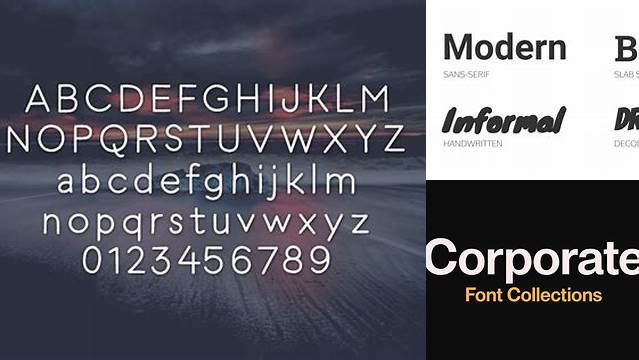
Corporate Normal Free Font: A Designer's Guide
Corporate Normal free font has become a popular choice for designers looking for a clean, professional, and versatile typeface. Guys, this font family is designed to be highly legible and adaptable, making it suitable for a wide range of applications, from corporate branding to web design and everything in between. Let's dive deep into what makes this font a great option, exploring its features, how to download it, and where you can best use it.
What is the Corporate Normal Free Font?
So, what exactly is Corporate Normal, and why is it so beloved by designers? Basically, it's a sans-serif typeface known for its simplicity, clarity, and neutrality. These fonts are made to be easy to read and to blend in with any other font you choose. The font is built on a design principle that stresses readability and a clean, modern aesthetic. This makes it a fantastic choice for any situation that demands clarity and professionalism. Its clean lines and consistent letterforms make it perfect for both digital and print media.
Corporate Normal offers a comprehensive set of weights and styles. This range allows designers to create a wide variety of design options. You can pick from light and thin styles for delicate elements and heavy, bold styles for headlines and titles. This flexibility makes it useful for a wide array of design projects. From document creation to web design, this font gives you the options you want. The typeface also includes a complete character set, including numerals, punctuation marks, and various special characters. This helps to ensure that it's fully functional for multilingual projects. The versatility extends to its compatibility. It works well with a variety of other fonts, making it a good choice for pairing with different typefaces. This makes your design stand out. The core principle behind Corporate Normal is its adaptability. It's designed to work in a way that helps your message shine through. This helps you to avoid distracting elements.
The aesthetic of Corporate Normal is all about simplicity. It aims to create a feeling of professionalism. This is a neutral typeface, with no strong personalities or distracting design choices. It's not just a font; it's a design tool that offers consistency and legibility. This makes your message clear. Corporate Normal has been optimized for both screen and print use, ensuring that your text looks great no matter the medium. This is a real benefit. This makes it perfect for various design situations. It works for websites, reports, and even product packaging. Its ability to look good in any situation makes it a great choice for a wide range of projects. This makes it a reliable option for designers who want a font that is both professional and easy to use. In short, Corporate Normal free font is a powerful and versatile typeface. It is the perfect choice for designers who want a font that combines functionality with a clean and modern look. This makes it an essential tool in any designer's toolkit.
Features and Characteristics of Corporate Normal
Corporate Normal free font comes with a variety of features that make it a great choice for many projects. Let's get into the details, shall we?
First, the font is known for its high readability. The letterforms are carefully designed to be clear and easy to distinguish, even at small sizes. This makes it perfect for text-heavy documents and websites. It is designed to look good at any size. This font is designed to be versatile. It comes in a wide range of weights and styles. This allows you to use the font in many different situations. From bold headlines to subtle body text, Corporate Normal offers the flexibility that designers need. The font also has a complete character set. It includes all the basic characters, plus some special characters. This supports many languages and a wide range of design needs. The font's spacing and kerning are carefully balanced. This improves readability and provides a consistent look. This also helps to enhance the overall visual appeal of any design.
Corporate Normal free font is designed to have a clean, modern aesthetic. The simple, geometric shapes give it a professional look. This makes it a good choice for corporate branding, where consistency and a professional image are key. The font is also easy to customize. It integrates well with design software. This makes it easy to modify the font for specific design projects. This helps you to maintain the look that is right for your brand. Corporate Normal is also very versatile. It is used in many different types of projects, from websites to printed materials. This versatility makes it a valuable tool for designers. Its ability to adapt to many design needs and ensure a unified visual experience is very valuable. This makes it an important asset in a designer's toolkit. The careful design of each character, the wide range of styles, and the focus on readability and professionalism make Corporate Normal a valuable choice for a variety of design projects. This makes it one of the best free fonts.
Best Uses of Corporate Normal Font
Corporate Normal free font is perfect for a wide array of design projects. Its versatility and clean look make it a top pick for several uses. Corporate branding is a great use of the font. Its clean design and professionalism make it a perfect fit for logos, websites, and marketing materials. It's great for communicating a brand's values with a cohesive look. Web design is another area where Corporate Normal really shines. Its readability and clean lines are ideal for both body text and headlines. This font helps ensure a great user experience for those viewing a website. The font works well in print media. Reports, presentations, and other printed materials will benefit from its clean look and good readability. This makes it a valuable choice for the creation of clear documents. Corporate Normal is often used for app interfaces. Its easy readability makes it a great choice. The font makes the user experience clear and professional. The font is used for a variety of design projects, from books to packaging. It is a highly useful tool for designers.
When choosing Corporate Normal free font, it's important to match the font to your specific project. Make sure the font fits the style and the tone you want to use in your design. The font can be used for any design situation. The adaptability of the font makes it useful for a wide range of projects. Corporate Normal is a reliable choice because of its readability, versatility, and professional feel. This makes it an essential tool for designers who want a font that is both useful and aesthetically pleasing. In short, Corporate Normal free font is a great choice for designers. It is a very flexible typeface that can be used in many types of projects.
Corporate Normal free font is a reliable and flexible choice for many different design needs. The simplicity and readability of the font make it a top option for designers. Its ability to blend in with other fonts makes it an excellent choice. The font has a wide range of applications. Corporate Normal is designed for designers who want a clean and modern look. This makes it an invaluable tool. It's easy to download, install, and use. This makes it a great choice for both beginners and experienced designers. You're set to start using it. So, go ahead and try Corporate Normal free font in your next project. It will help you create designs that are both effective and aesthetically pleasing. Whether you're working on a website, a report, or an app, Corporate Normal is a great choice. Use this font to create designs that look clean and professional. The adaptability, simplicity, and readability of Corporate Normal make it a must-have for any designer's toolkit. Happy designing!